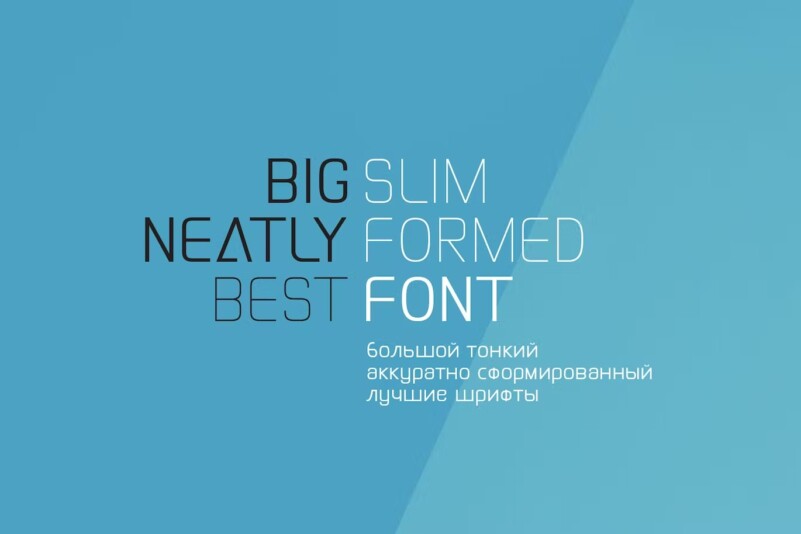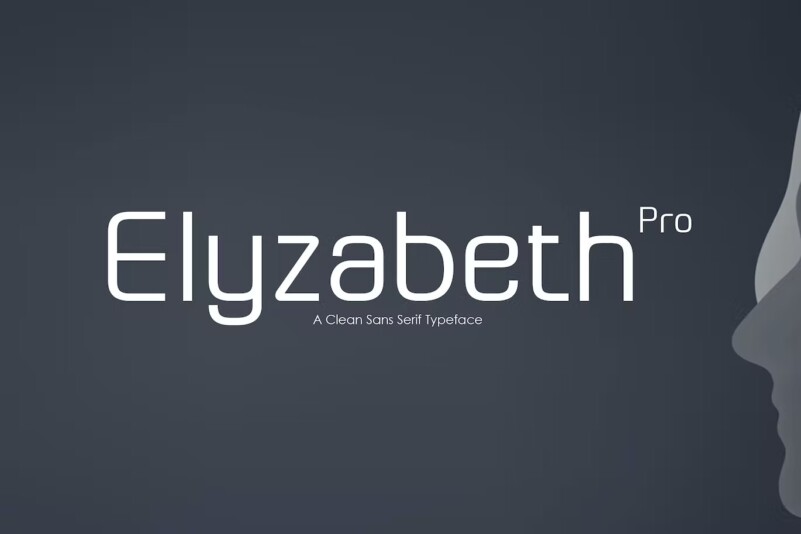
Elyzabeth Pro – Font Family
Elyzabeth Pro is a very elegant and practical sans serif font family and precise in its creation. clean fonts that stand upright elegantly that are soft and familiar and easy to read, Not boring to the reader.
This type of font is great to use for very large writing purposes, ranging from notes on daily activities, magazines, newspapers, logos, posters, product compositions, product descriptions to be sold and indications of any product composition that requires writing shadows.
Elizabeth Pr o contains eight fonts. Broadly speaking, this font has two models, namely Regular and Italic. (Thin, Thin Italic, Regular, Regular Italic, Semi Bold, Semi Bold Italic, Bold and Bold Italic. They all support Latin, Greek, and Cryillic characters.